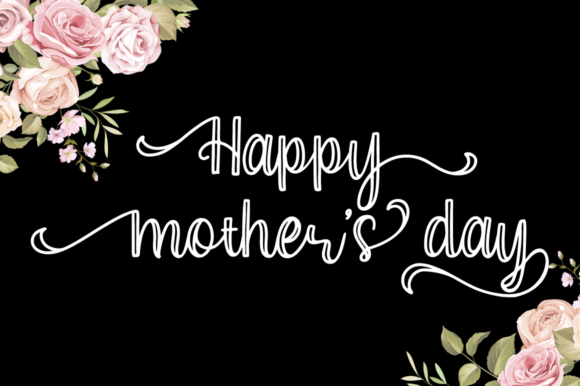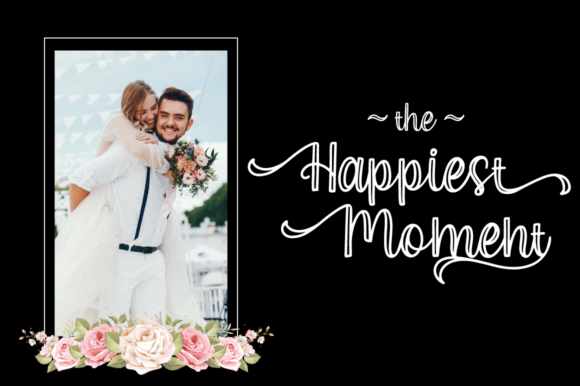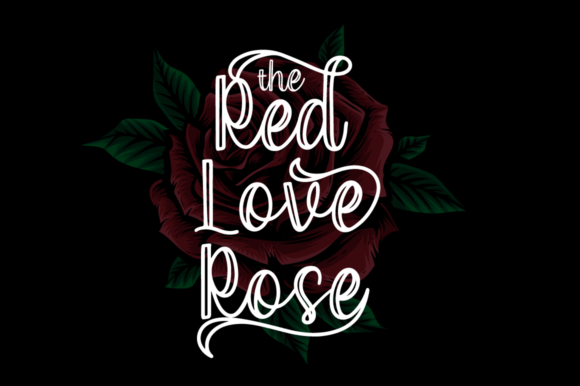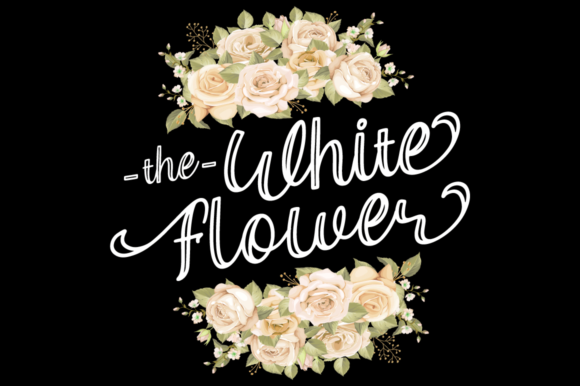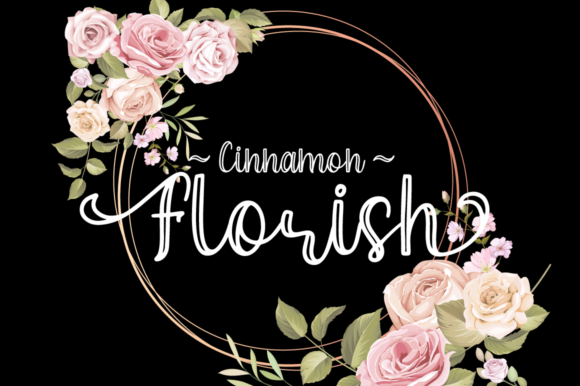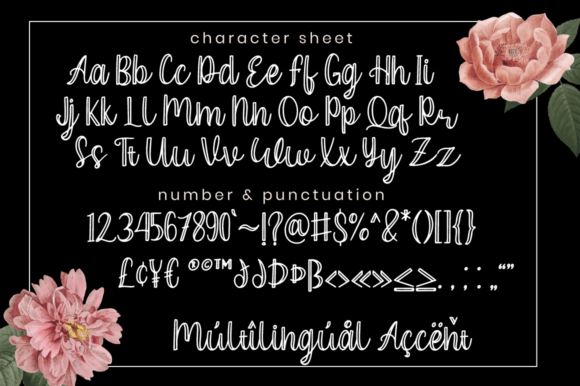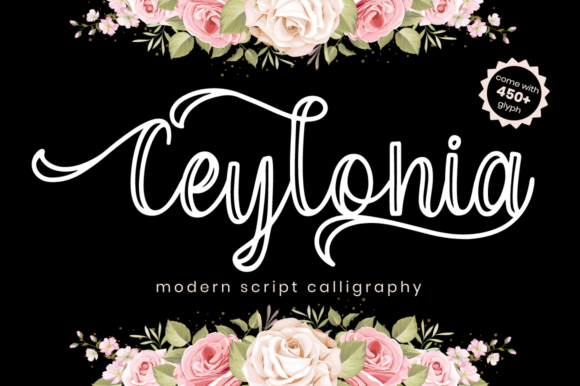
Ceylonia Font: A Beautiful Handwritten Font for Your Creative Projects
Are you a designer or crafter looking for a unique and elegant font to elevate your creative projects? Look no further than Ceylonia, a stunning handwritten font inspired by outline lettering. With its authentic feel and versatility, Ceylonia is perfect for creating gorgeous wedding invitations, beautiful stationary art, eye-catching social media posts, and cute greeting cards.
What Makes Ceylonia Special?
Ceylonia is more than just a font – it’s a tool for creative expression. This beautiful handwritten font includes 6 stylistic sets that can be combined to create outstanding designs. Whether you’re looking for a classic and elegant look or a more playful and whimsical feel, Ceylonia has got you covered.
Key Features of Ceylonia Font
- Handwritten with love: Ceylonia is a carefully crafted handwritten font that exudes warmth and personality.
- Inspired by outline lettering: Ceylonia’s unique style is inspired by outline lettering, giving it a distinctive and elegant feel.
- 6 stylistic sets: With 6 stylistic sets to choose from, you can mix and match to create unique and interesting designs.
- Authentic feel: Ceylonia’s authentic feel makes it perfect for creating designs that look like they were written with love.
- Multipurpose: Ceylonia can be used for a wide range of creative projects, from wedding invitations to social media posts.
Ceylonia is a dream come true for designers and crafters who want to add a personal touch to their work. With Ceylonia, you can:
- Create stunning wedding invitations: Impress your clients with beautiful, one-of-a-kind wedding invitations that set the tone for the big day.
- Make beautiful stationary art: Add a touch of elegance to your stationary art with Ceylonia’s unique and stylish font.
- Design eye-catching social media posts: Stand out on social media with Ceylonia’s bold and playful font.
- Craft cute greeting cards: Create personalized greeting cards that will make your loved ones feel special.
Tips for Using Ceylonia Font
To get the most out of Ceylonia, here are a few tips:
- Experiment with stylistic sets: Don’t be afraid to try out different stylistic sets to find the perfect combination for your design.
- Play with font sizes: Ceylonia looks great in a variety of font sizes, so experiment to find the perfect size for your project.
- Add embellishments: Consider adding embellishments, such as flowers or borders, to give your design an extra touch of elegance.
Ceylonia is a beautiful handwritten font that is sure to elevate your creative projects. With its unique style, versatility, and authentic feel, Ceylonia is perfect for designers and crafters who want to add a personal touch to their work. Whether you’re creating wedding invitations, stationary art, social media posts, or greeting cards, Ceylonia is the perfect choice. So why wait? Fall in love with Ceylonia today and start creating stunning designs that will leave a lasting impression!